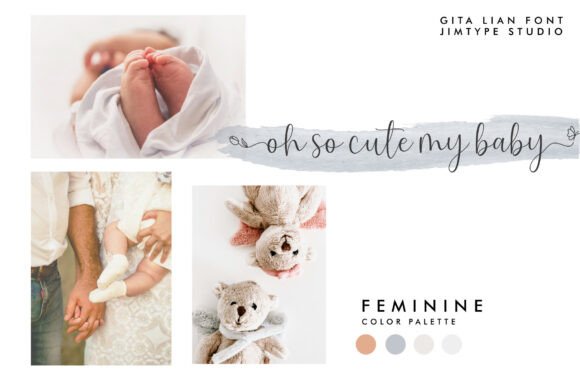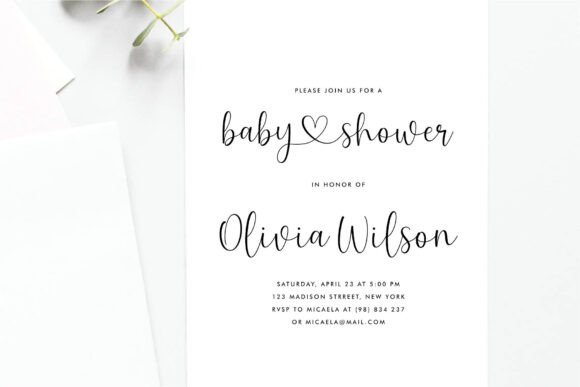
Gita Lian Font
Introducing Gita Lian Font, the ultimate choice for wedding font themes, featuring elegant script swashes and heart connections.
Gita Lian Font captures the essence of love and is your go-to solution for projects that require a blend of romance and elegance. Perfect for weddings, branding, and heartfelt designs, this font ensures your work shines with beauty and sophistication.